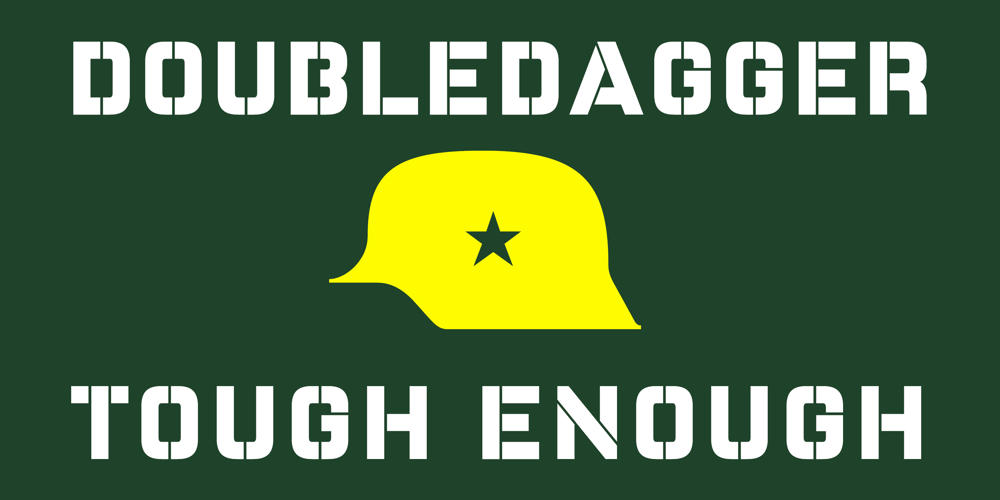
Double Dagger Font Family was designed by Ryoichi Tsunekawa and published by Dharma Type. Double Dagger contains 7 styles and family package options. Geometric stencil with a variety of weights. It is so orthodox and simple that you can use it in various creations.